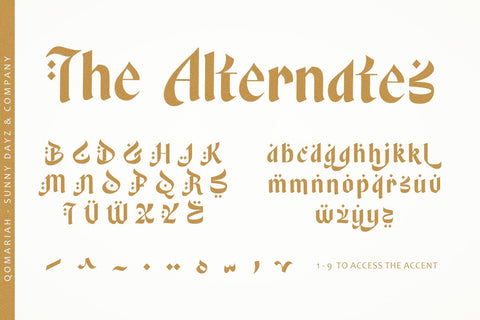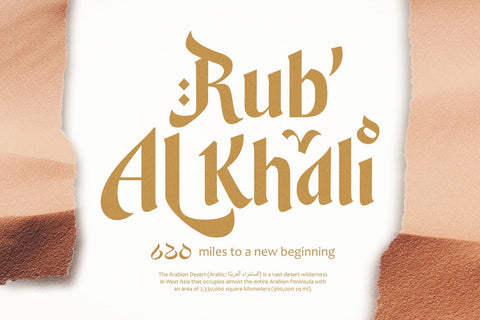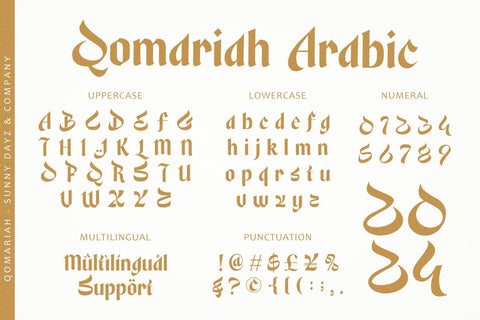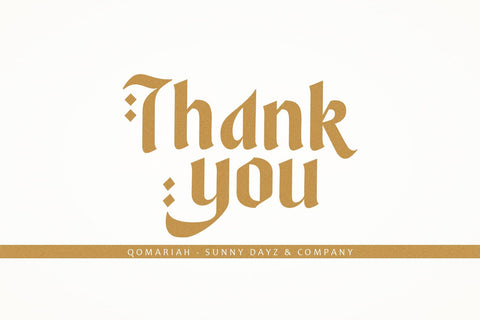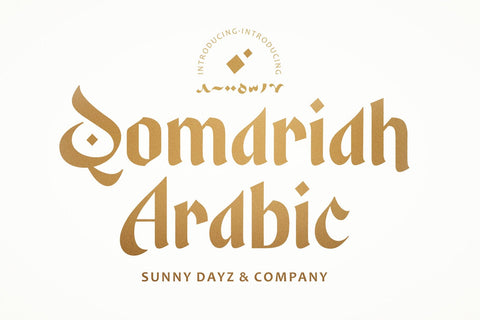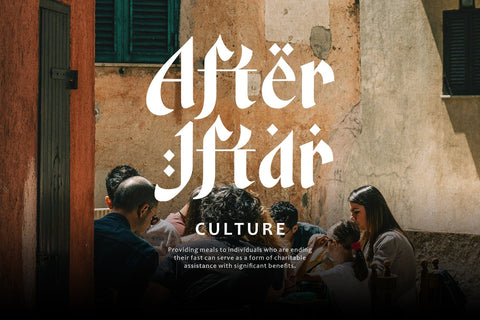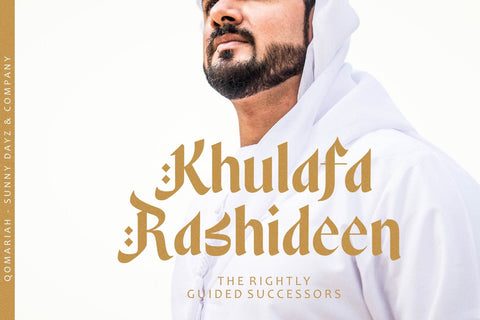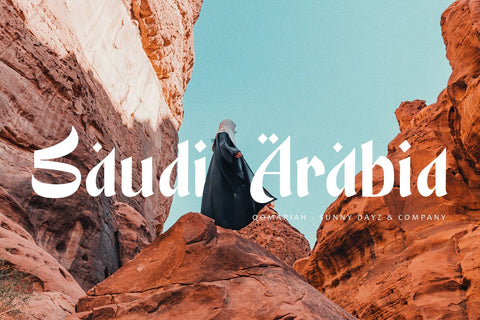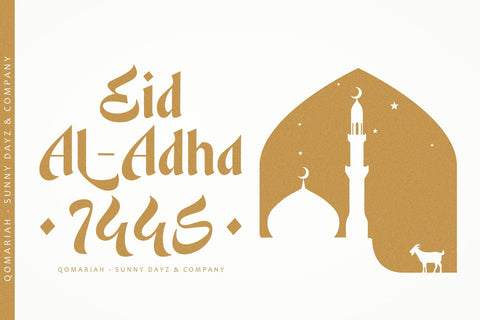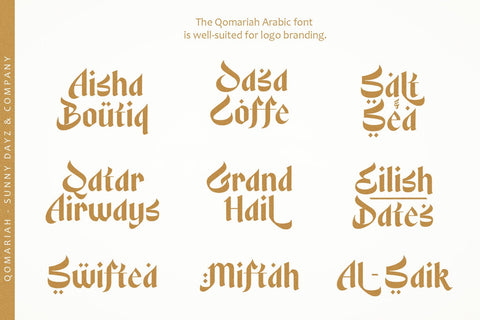
. Qomariah – Arabic Display Font
Introducing Qomariah – Arabic Display Font, a typeface that embodies the intricacies of Middle Eastern design. Drawing inspiration from traditional Arabic calligraphy, this font showcases decorative letterforms ideal for projects associated with Middle Eastern heritage.
Qomariah Typeface is particularly well-suited for a variety of applications including branding, logos, social media content, headlines, greetings cards, advertisements, product packaging, labels, t-shirt designs, websites, invitations, stationery, and any projects.